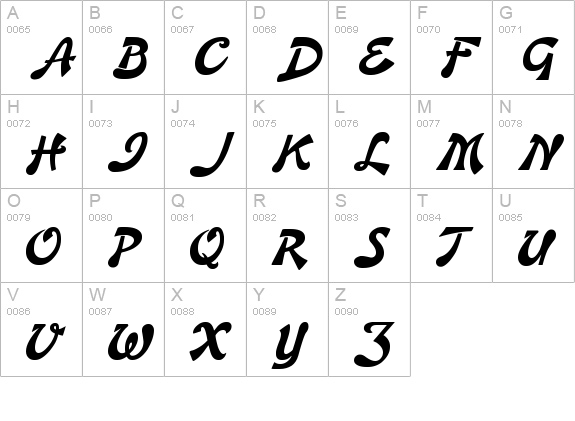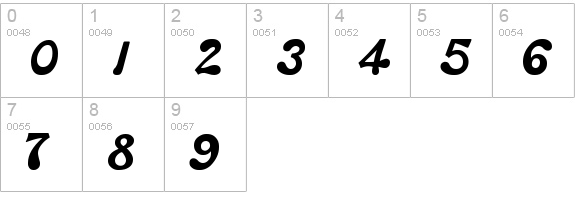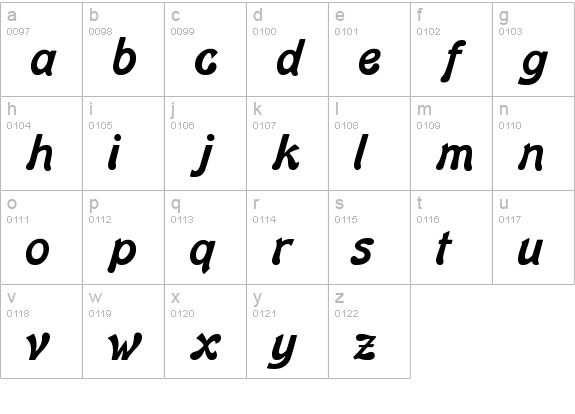
Edge Font Details
Introducing Edge font, a sleek and modern typeface that exudes sophistication and elegance. With its clean lines and contemporary feel, Edge is perfect for a wide range of design projects, from branding to editorial layouts. This versatile font is free for personal and commercial use, making it an ideal choice for designers looking to add a touch of refinement to their work. You can easily download the Edge font for free at FontsMarket.com, where you'll find a wide selection of high-quality fonts to enhance your creations. Don't miss out on this opportunity to elevate your designs with the stylish Edge font – download it today and take your projects to the next level.